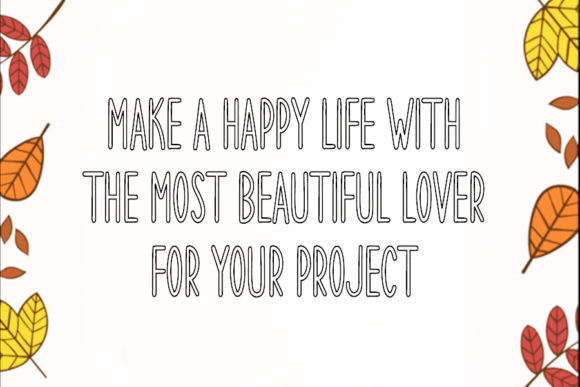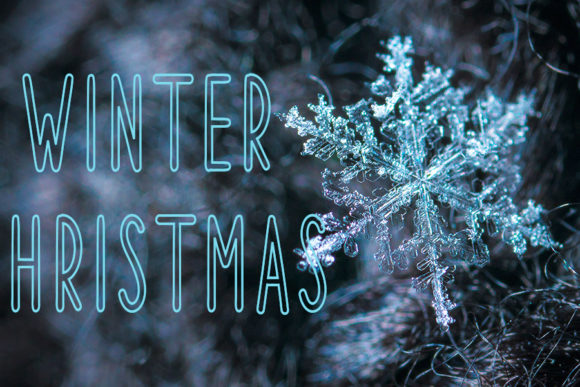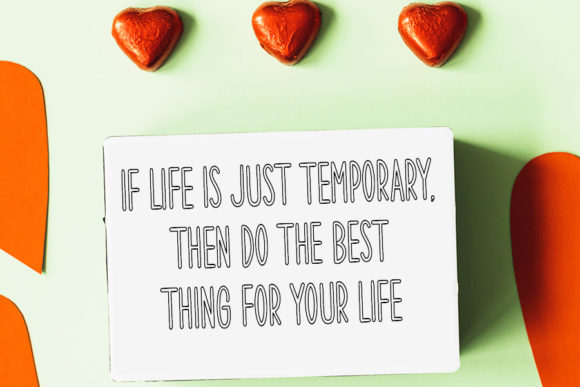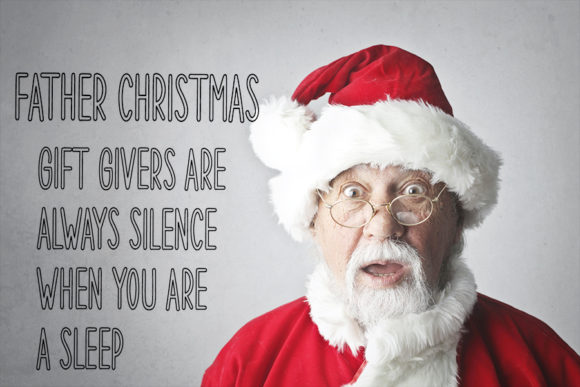
Introduction to Online Store Font
Online Store is a simple and friendly sans serif font.
It has a casual and attractive style and is the ideal choice for each of your informal designs .
Key Features of Online Store Font
Why Choose Online Store Font?
Online Store Font offers exceptional quality and versatility, making it a valuable addition to your design toolkit. Whether you’re creating for personal projects or commercial use, Online Store Font delivers professional results.